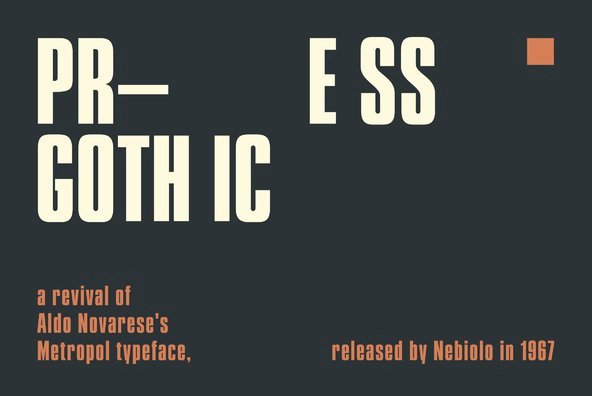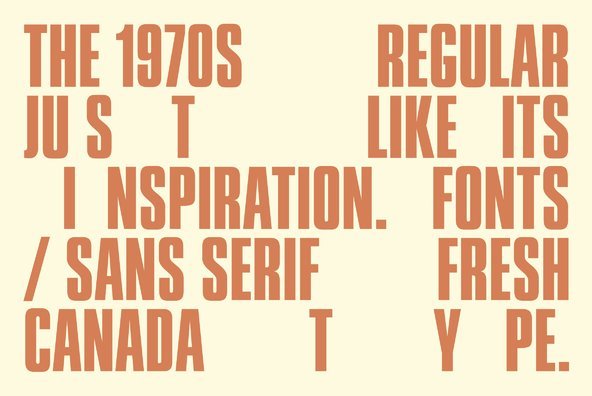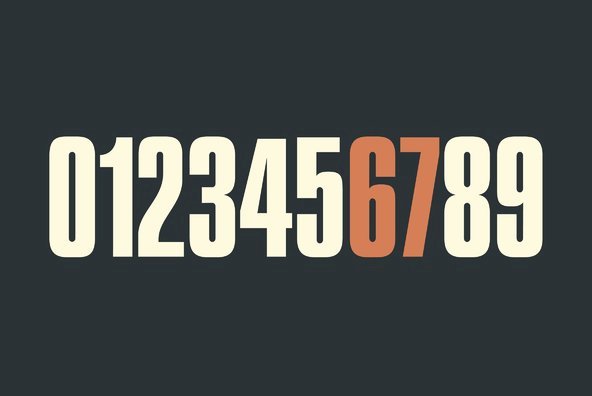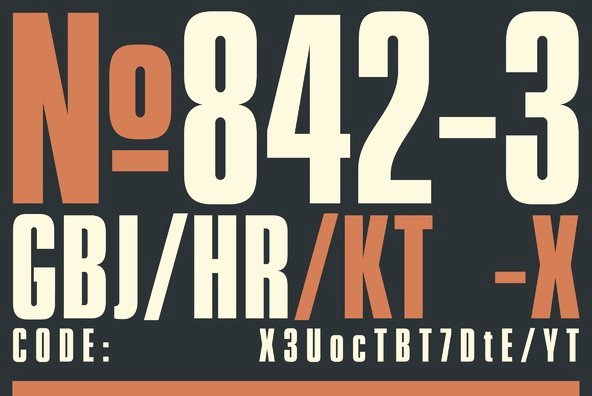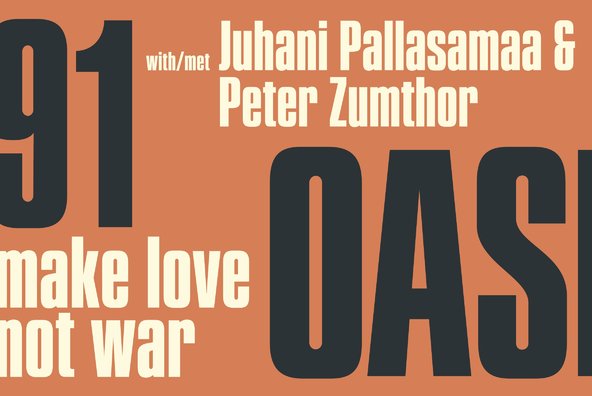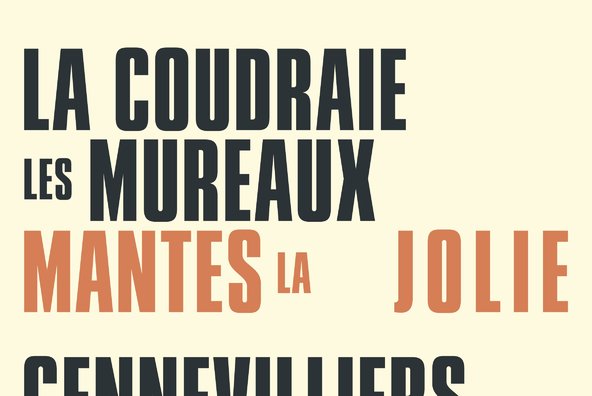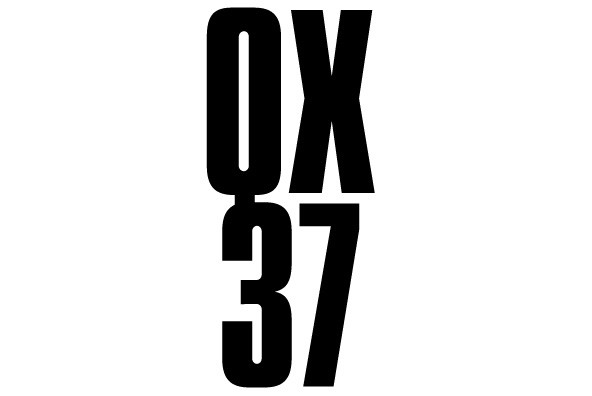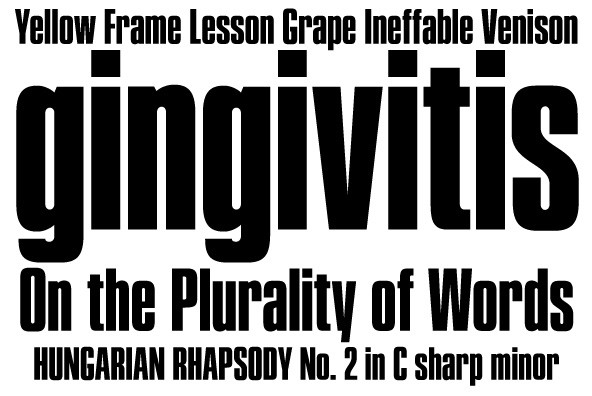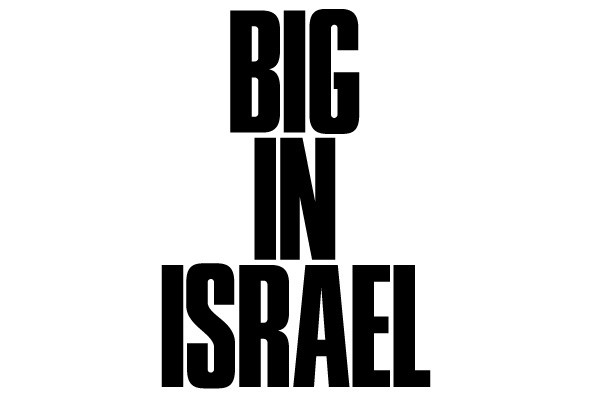
Press Gothic
Press Gothic is a revival of Aldo Novarese's Metropol typeface, released by Nebiolo in 1967 as a competitor to Stephenson Blake's Impact (designed by Goeffrey Lee). Though Metropol enjoyed a few short months of popularity and use in Italy, Germany and France, Impact won the technological outlasting battle by moving on to film type then to computer outlines bundled with mainstream software, while Metropol never made it past the metal state until now. Too bad really, since this is one of the few faces that could have played well with all the horrendous stretch'n'squeezing of the 1970s.
Just like its inspiration, Press Gothic aims to be a fresh alternative to big economical poster fonts with clear sans serif forms and an urgent, strong, yet elegant design appeal.